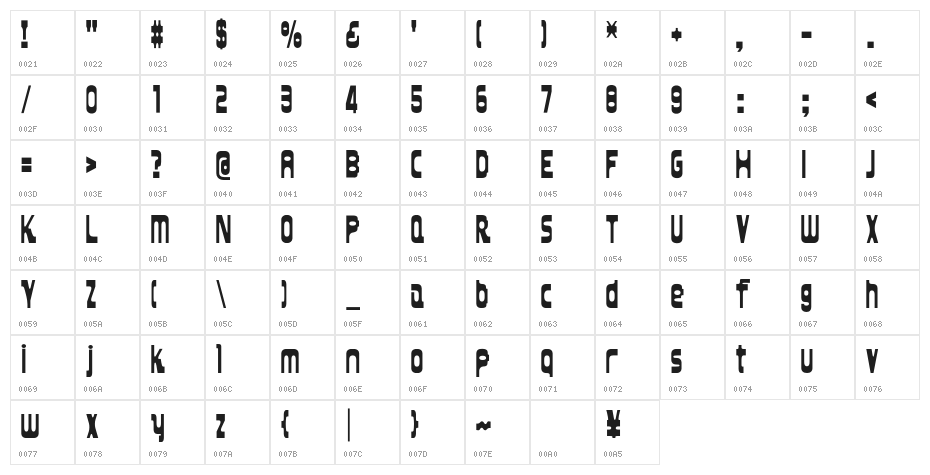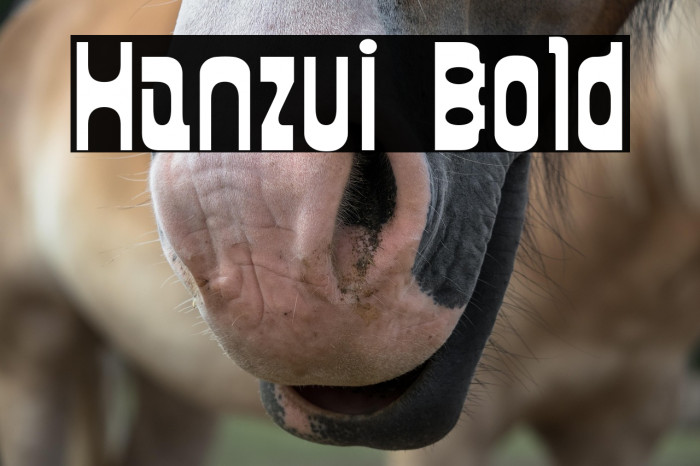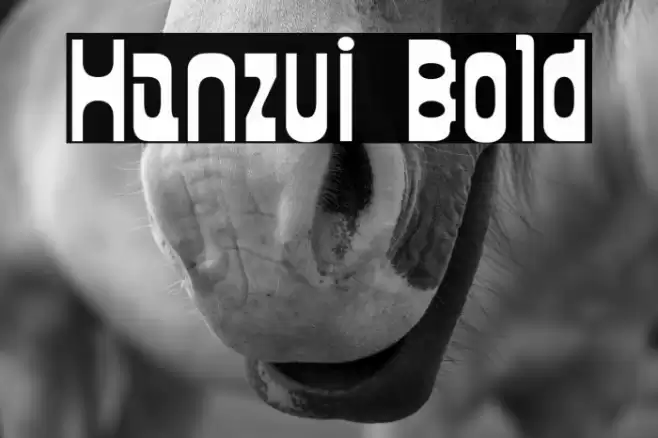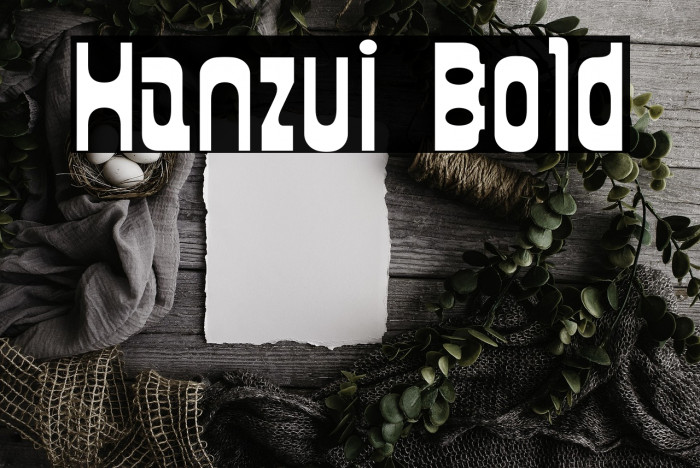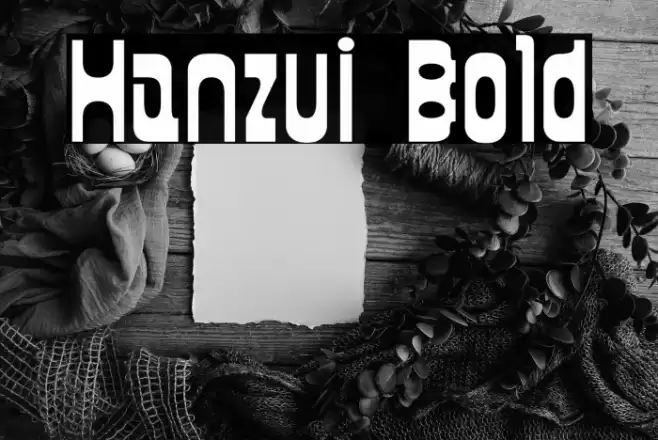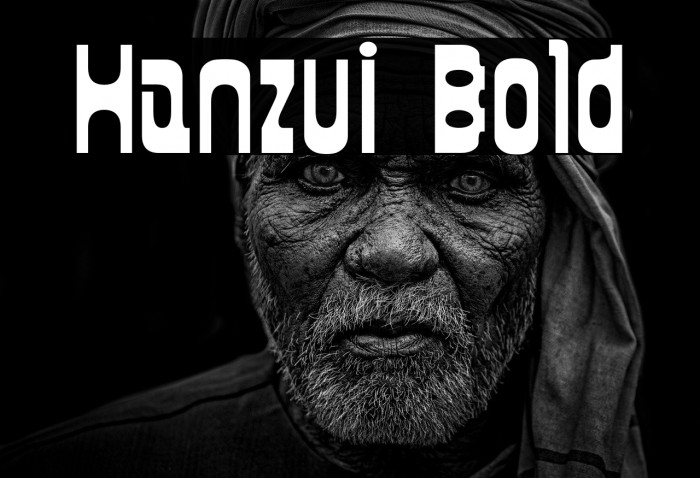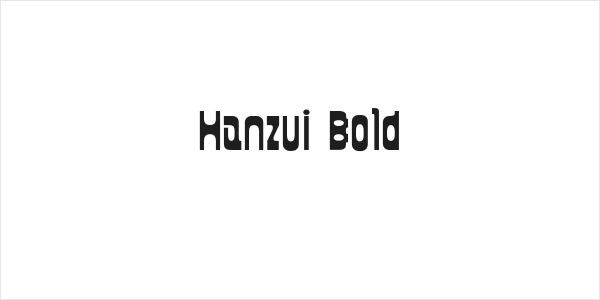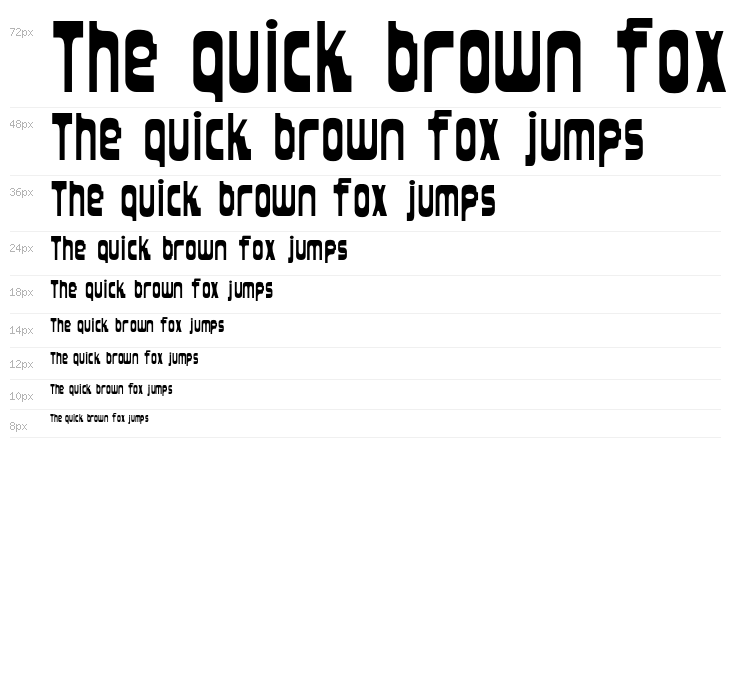
Hanzui Bold Font
Hanzui Bold Description
This font features a bold and geometric design with a strong presence. The characters are constructed with thick strokes and a uniform weight, creating a sense of stability and strength. The uppercase and lowercase letters maintain a consistent style, with rounded edges and a slightly condensed form. The numerals and special characters follow the same bold and structured aesthetic, ensuring a cohesive look across all text elements. The font's design is modern and impactful, making it suitable for attention-grabbing headlines and logos.